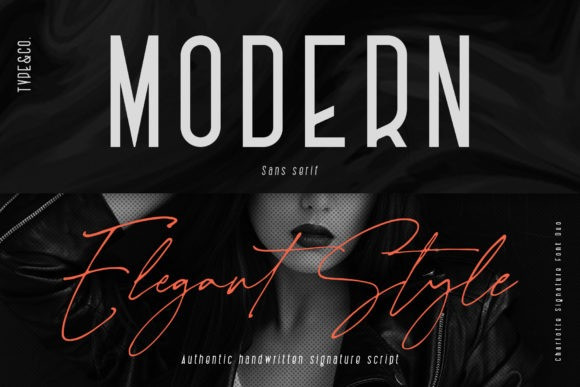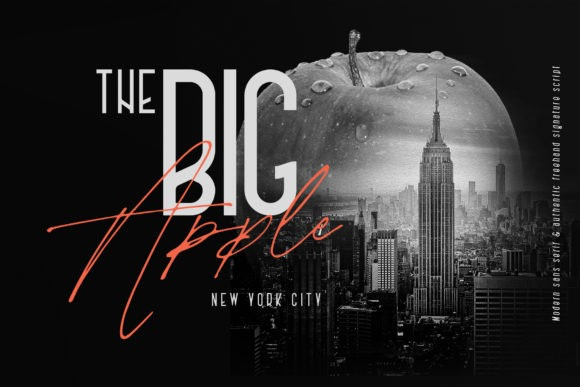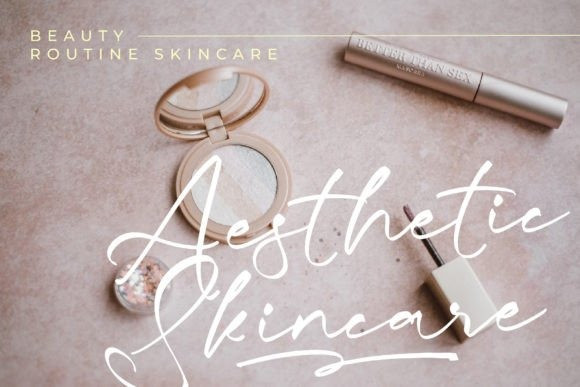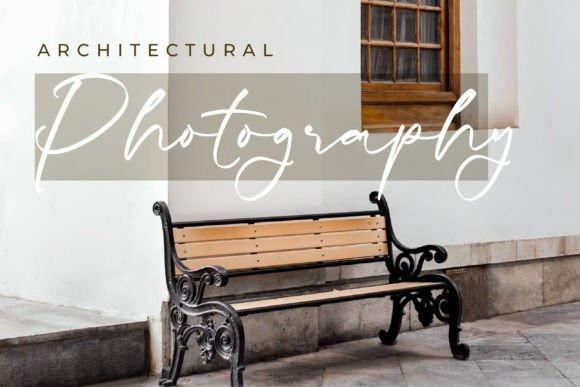
Soolera Bundo Font
Soolera Bundo Font is a modern and elegant signature script font. Fall in love with its incredibly distinct and timeless style and use it to create spectacular designs!